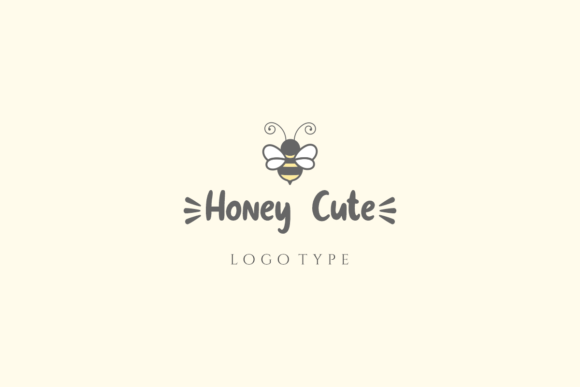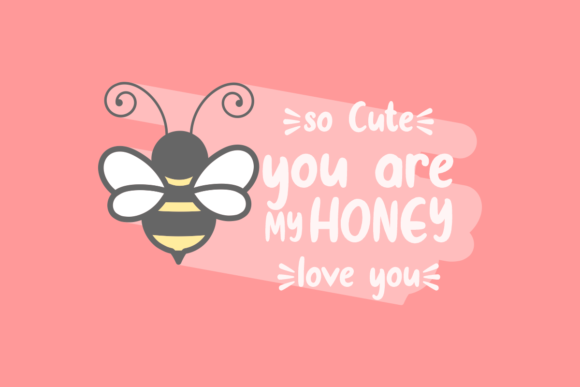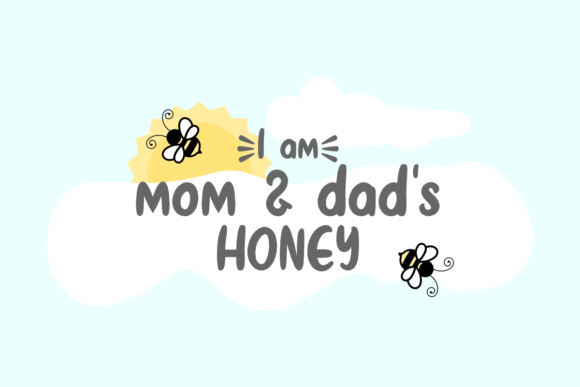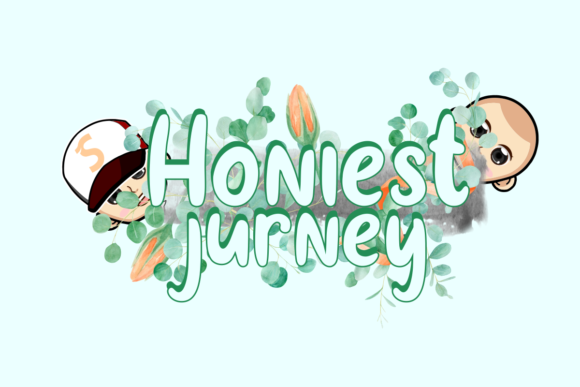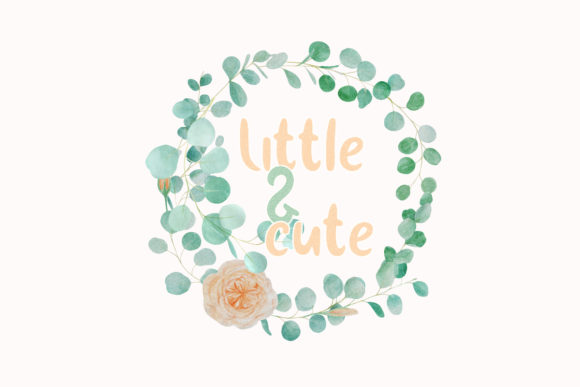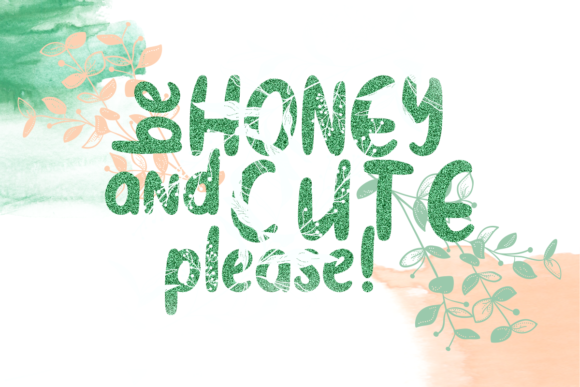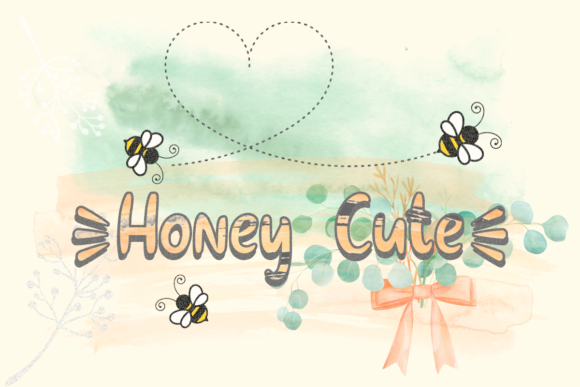
Honey Cute Font
About Honey Cute Font
Honey Cute is a sweet and friendly handwritten font. Its unique style makes it incredibly versatile and fitting to a large pool of designs. Get inspired by its authentic feel and use it to create gorgeous artwork!